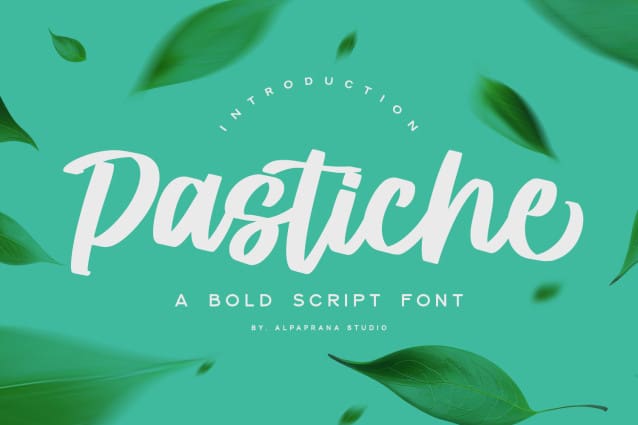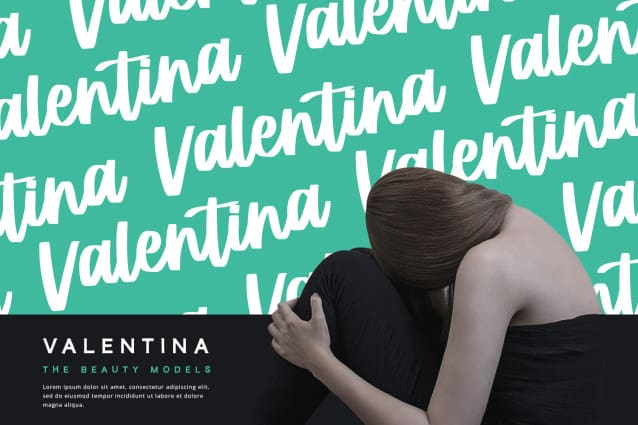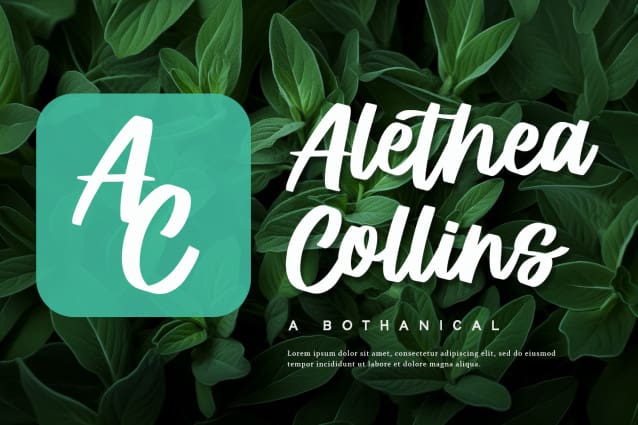
Prestiche Script Font
Prestiche Script Font is a bold script font with elegant and modern feels. It will be perfectly used for Branding, Logo Design, Lettering, Logotype, Clothing, Poster, magazine, packaging, posters, shopping bags, t-shirts, book covers, photography, special events and other design project.